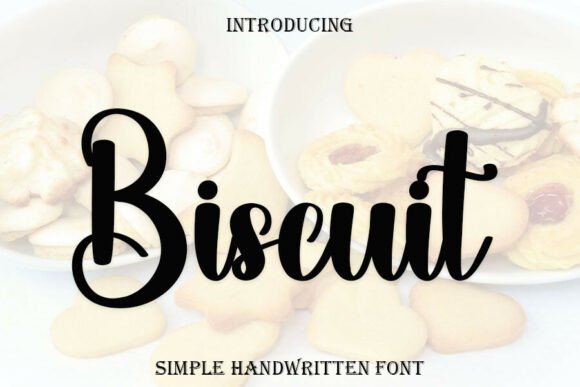
When Words Become Whimsical
Have you ever stumbled upon a design that makes you feel all the feels? For me, it’s when a beautifully handwritten font transports me to a world of romance and joy. The Biscuit Font is one of those sweet treats that can add a pinch of whimsy to any design project.
Perfectly suited for branding, logos, wedding invitations, and greeting cards, this cursive font is a designer’s best friend. With its elegant yet casual vibe, the Biscuit Font is the perfect addition to any project that needs a touch of sophistication and playfulness. Whether you’re working on a marketing campaign or a lookbook, this font will make your design stand out from the crowd.
Biscuit Font Key Features
- Character Set: The font includes a wide range of characters, including uppercase and lowercase letters, numbers, punctuation marks, and special characters, making it suitable for various design applications.
- Unique Characteristics: Biscuit Font features a unique, hand-drawn design with a warm and inviting tone, making it perfect for creating a cozy and welcoming atmosphere in design projects.
- Font Style: The font comes in two styles: Regular and Bold, allowing designers to create a range of visual effects and emphasize specific text elements.
Biscuit Font Review
I recently had the chance to work with the Biscuit Font, and I must say it’s a unique and intriguing choice for designers. Here’s my honest review.
- The Biscuit Font has a distinctive, playful feel that can add a touch of whimsy to any design project.
- The font is highly customizable, with a wide range of weights and styles to choose from.
- The designer has done a great job of creating a cohesive family of fonts that work well together.
- The Biscuit Font may not be the best choice for formal or professional designs, as it can come across as too playful or casual.
- The font’s bold weights can be a bit too aggressive, overpowering the other elements in a design.
- The font may not be compatible with all operating systems or devices, which can cause rendering issues.
Overall, I think the Biscuit Font is a great choice for designers who want to add a bit of personality to their projects. While it may have some limitations, it’s a versatile and highly customizable font that can be a great addition to any design toolkit.
Tips for Getting the Most Out of Biscuit Font
For best results, use Biscuit Font in combination with bold or italic styles to add emphasis. You can also adjust the font size to create visual hierarchy in your design. Experiment with different colors and backgrounds to make your text stand out.
Biscuit Font is ideal for creating playful, whimsical designs, such as children’s book covers, party invitations, or social media graphics. It’s also great for adding a touch of personality to food labels, product packaging, or advertising materials.
Alternatives to Biscuit Font for Designers
Ostrich Sans is a modern sans-serif font that offers a clean and minimalist look. It’s ideal for use in digital design, such as websites, apps, and social media platforms. Compared to Biscuit Font, Ostrich Sans is more geometric and lacks the distressed texture of Biscuit, making it a better choice for designs that require a clean and crisp aesthetic.
Great Vibes is a script font that offers a more elegant and sophisticated look. It’s perfect for use in branding, packaging, and editorial design. Unlike Biscuit Font, Great Vibes has a more refined and polished appearance, making it suitable for high-end designs that require a touch of luxury.
Playfair Display is an elegant serif font that’s perfect for use in luxury branding, packaging, and advertising. It’s characterized by its ornate details and classic feel. Compared to Biscuit Font, Playfair Display is more formal and traditional, making it a better choice for designs that require a touch of sophistication and elegance.